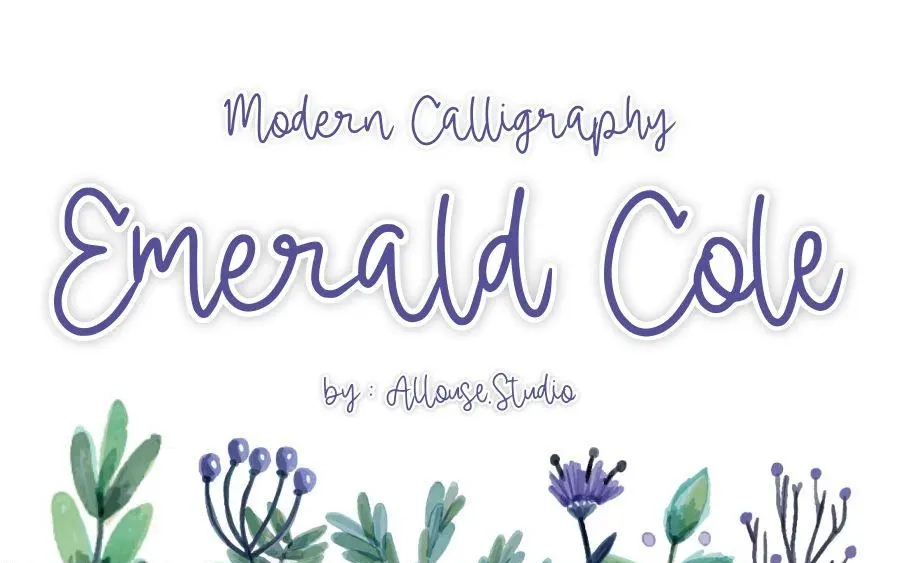
Introducing the Handcraft Fonts Bundle, a carefully curated collection of unique typefaces designed to add a personal touch to your projects. This bundle includes a variety of font styles, from elegant scripts to bold display types, ensuring that you have the perfect font for any occasion.
- Multiple font styles including serif, sans-serif, and script
- Various weights for each font, allowing for versatile design options
Each font in the Handcraft Fonts Bundle is crafted with attention to detail, making them suitable for both digital and print applications. The fonts are designed to be legible and aesthetically pleasing, ensuring your text stands out.
- Ideal for branding projects, logos, and marketing materials
- Perfect for web design, ensuring a unique online presence
- Great for print applications like invitations, posters, and business cards